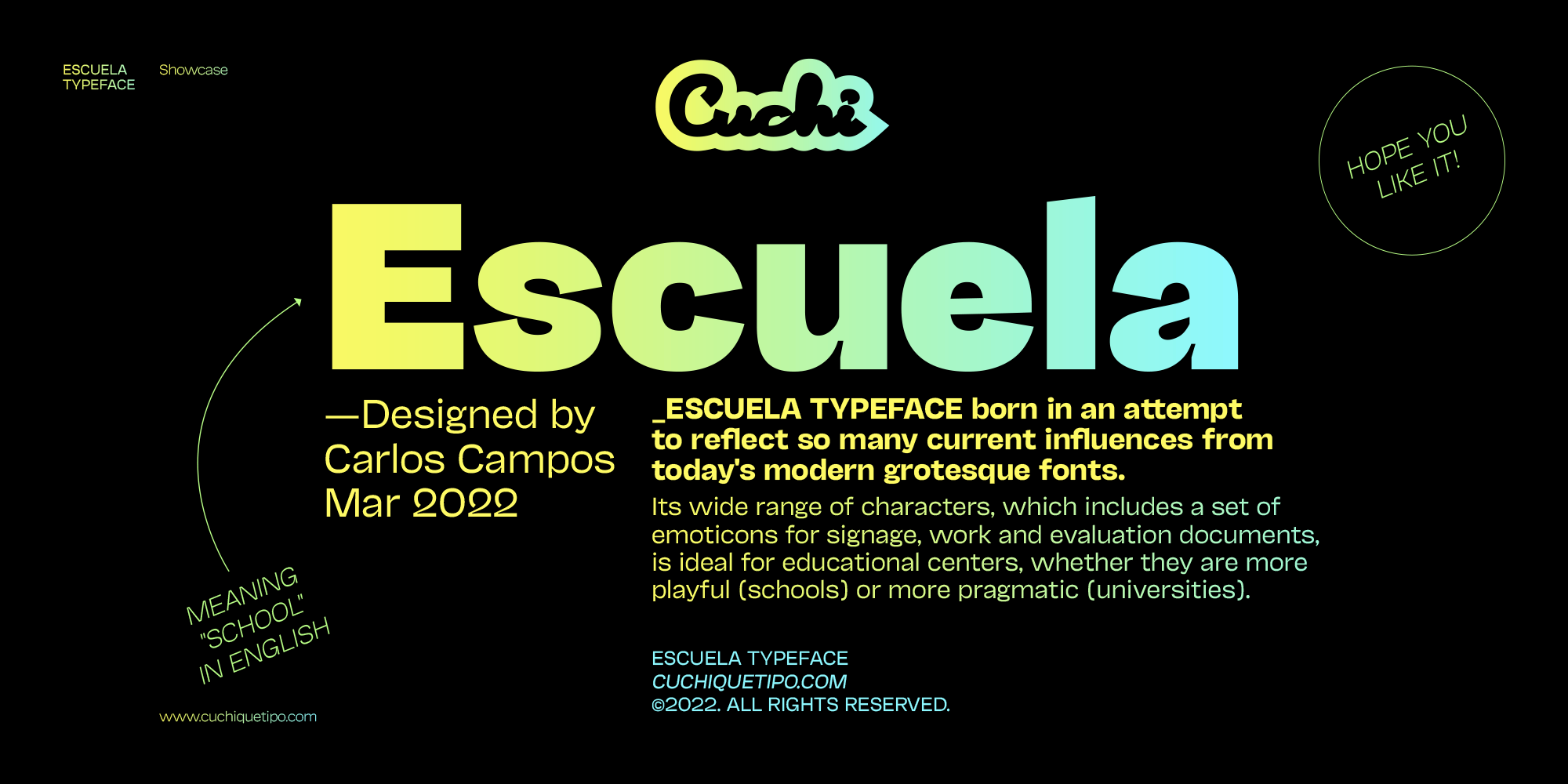
Escuela Font is ideal for educational institution branding, school district materials, academic program presentations, classroom display boards, student handbook designs, educational conference graphics, learning center signage, and scholarly publication covers. Its scholarly character makes it perfect for projects celebrating education and academic excellence.
What makes Escuela Font exciting is its inspiring ability to embody the foundation of learning through thoughtfully designed letterforms that capture the essence of educational growth and academic achievement. The scholarly construction features balanced proportions with educational clarity that reflects the importance of knowledge acquisition and intellectual development. This typeface embodies educational excellence and academic integrity, making every design feel intellectually inspiring and educationally significant.
Escuela Font family includes Regular, Bold, Light, Italic, Academic, and Scholar variations, providing designers with comprehensive tools for creating compelling education-focused typographic compositions that celebrate learning and academic achievement.
Educate through exceptional design with the scholarly wisdom of Escuela Font Free Download. This educational typeface brings academic excellence to any learning project, whether you're developing brand identities for schools, crafting promotional materials for educational programs, or designing graphics for academic institutions. The font's education-inspired architecture and scholarly presence make it essential for projects requiring authentic academic appeal. Escuela Font perfectly captures the essence of educational excellence while ensuring optimal readability across all learning applications. Its scholarly character forms and education-inspired design language make it ideal for organizations seeking to communicate academic quality and educational commitment, delivering memorable results that resonate with audiences who value learning, intellectual growth, and the transformative power of education that shapes minds and builds foundations for lifelong success and personal development.